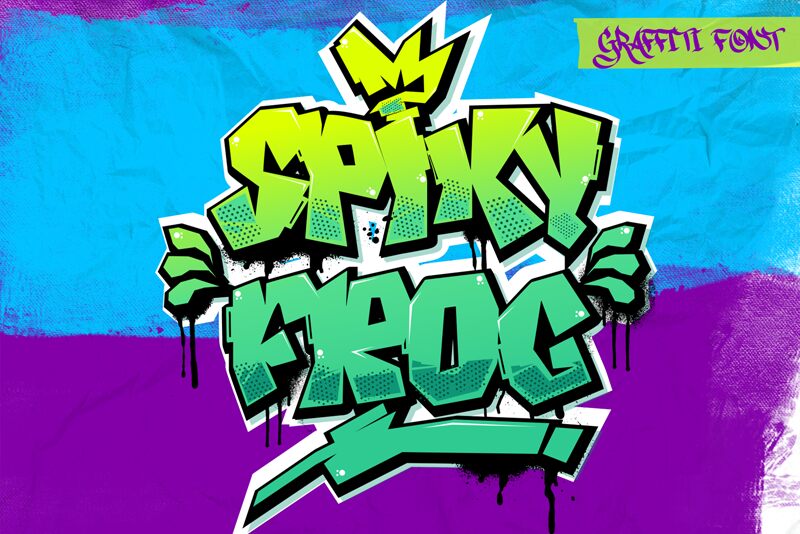
Spiky Frog Graffiti
Get ready to add a touch of edgy and rebellious flair to your designs with Spiky Frog Graffiti. Crafted by the talented Si Panji, this bold graffiti font is perfect for projects that require a little bit of an urban, streetwise vibe. Whether you're designing posters, album covers, or t-shirts targeted towards the youth culture or just looking to add some attitude to your brand's messaging - Spiky Frog Graffiti is the perfect typeface for you.With its sharp edges and eye-catching style, this font is sure to grab attention and make a lasting impression. So go ahead and unleash your creativity with Spiky Frog Graffiti - the ultimate typography tool for those who want to make a statement!